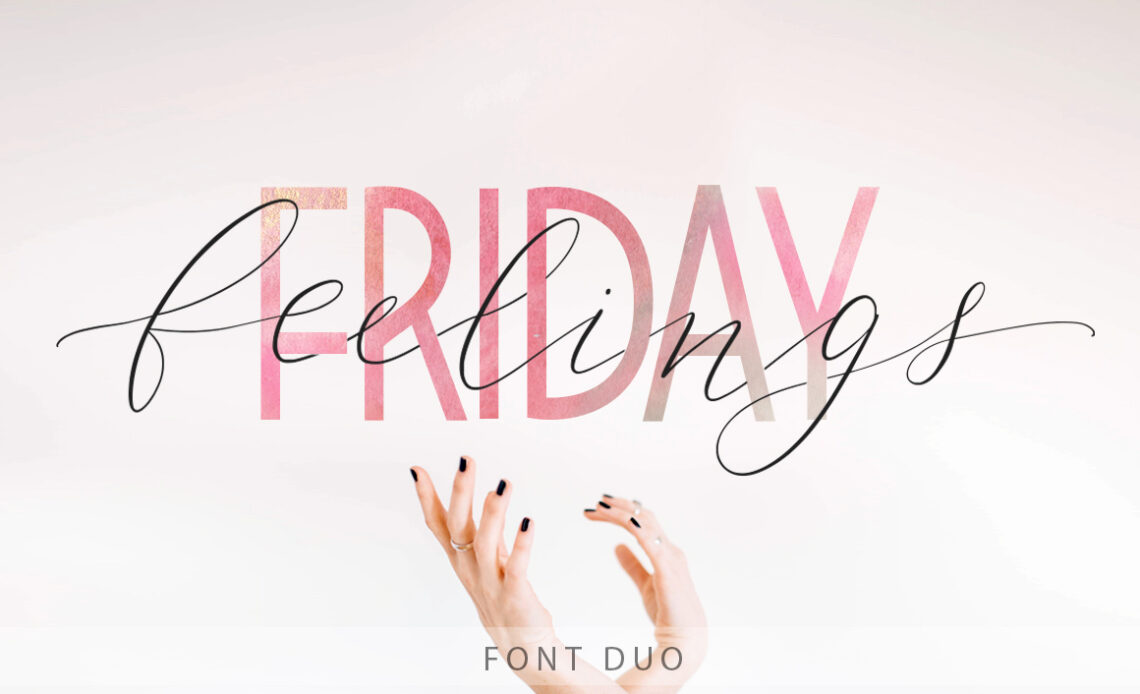
Unleash the vibrant beauty and heartfelt energy of "Friday Feelings" - a captivating font duo brimming with expressive charm and elegant style. Let these fonts dance across your creative projects like a melody, evoking a sense of pure joy and heartfelt connection.
With its playful calligraphy strokes and a complementary sans-serif companion, "Friday Feelings" exudes a joyful, carefree spirit that will light up any design. Its whimsical curves and distinctive letterforms add a touch of vibrancy and personality, perfect for projects that aim to leave a lasting impression.
Dive into a world of endless creative possibilities with "Friday Feelings." From heartfelt wedding invitations and enchanting social media posts to inspiring quotes and playful branding materials, this font duo has the power to transform your words into works of visual art.
Feel the Friday Feels with this dynamic duo, crafted with love and passion by Red Ink. Its versatility knows no bounds, allowing you to effortlessly express yourself across a multitude of design endeavors. Each letter dances across the page, carrying a piece of your heart, leaving an imprint of pure joy.
Let "Friday Feelings" ignite your creative spark and bring your projects to life. Be captivated by its enchanting aura and bask in the admiration of those who witness your creations. Immerse yourself in a world of expressive typography and let your imagination soar with "Friday Feelings."